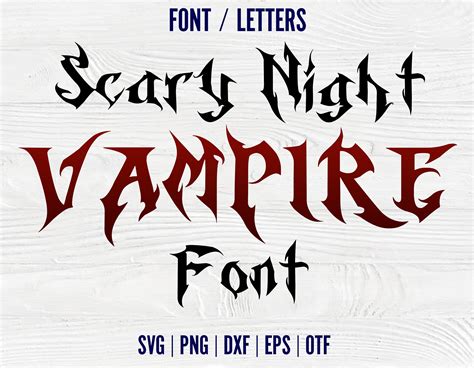
Did you know that 'Font' is a French word meaning 'mold' or 'form'? How fitting for Halloween!
What is Font?
A font is a set of characters, symbols, and glyphs that make up a typeface. Fonts may be used to create logos, headlines, and other design elements. Fonts can be used to create a sense of atmosphere or to evoke a particular emotion. Fonts can also be used to create a sense of fun and excitement.
What is Spooky and Fun Fonts?
Spooky and fun fonts are perfect for Halloween decorations. They can be used to create unique and exciting designs for Halloween cards, Halloween party invitations, Halloween decorations, and Halloween costumes. Spooky and fun fonts can also be used to create Halloween-themed party games, Halloween-themed decorations, and Halloween-themed gifts. Spooky and fun fonts are perfect for creating a spooky and fun atmosphere for Halloween.
Types of Spooky and Fun Fonts
There are many different types of spooky and fun fonts available. Some of the most popular spooky and fun fonts include: Halloween font, Vampire font, Ghost font, Witch font, Werewolf font, and Pumpkin font. Each of these fonts has its own unique look and feel, and can be used to create a variety of designs. For example, the Pumpkin font can be used to create a spooky design for a pumpkin carving, while the Vampire font can be used to create a spooky design for a Halloween costume.
Where to Find Spooky and Fun Fonts?
Using Spooky and Fun Fonts
Once you have downloaded a spooky and fun font, you can use it to create unique designs for various projects. For example, you can use a spooky font to create a unique invitation for a Halloween party. You can also use a spooky font to create a logo for a Halloween event or a Halloween costume. Spooky and fun fonts can also be used to create unique decorations for a Halloween party or a Halloween costume.
Creating Designs with Spooky and Fun Fonts
Once you have downloaded a spooky and fun font, you can use it to create a variety of designs. You can use the font to create a logo or a design for a Halloween invitation. You can also use a spooky font to create a design for a Halloween costume or a Halloween decoration. You can also use a spooky font to create a design for a Halloween party game or a Halloween gift.
Sharing Spooky and Fun Fonts
Once you have created a design with a spooky and fun font, you can share it with others. You can share the design on social media or email it to friends and family. You can also print the design and give it away as a Halloween gift. Sharing your designs with others is a great way to spread the Halloween spirit.
Conclusion
Spooky and fun fonts are perfect for creating unique designs for Halloween. Whether you are creating a design for a Halloween invitation, a Halloween costume, or a Halloween decoration, spooky and fun fonts can help you create the perfect design. You can find spooky and fun fonts online and use them to create a variety of designs. Once you have created a design with a spooky and fun font, you can share it with others. Spreading the Halloween spirit is a great way to get ready for the spooky and fun holiday.